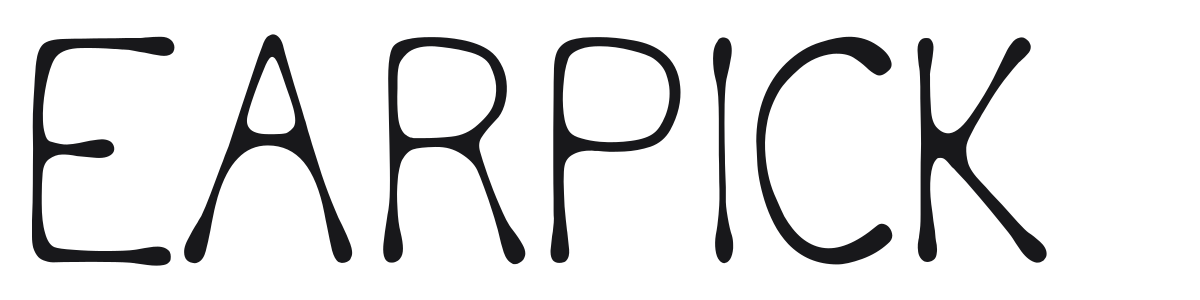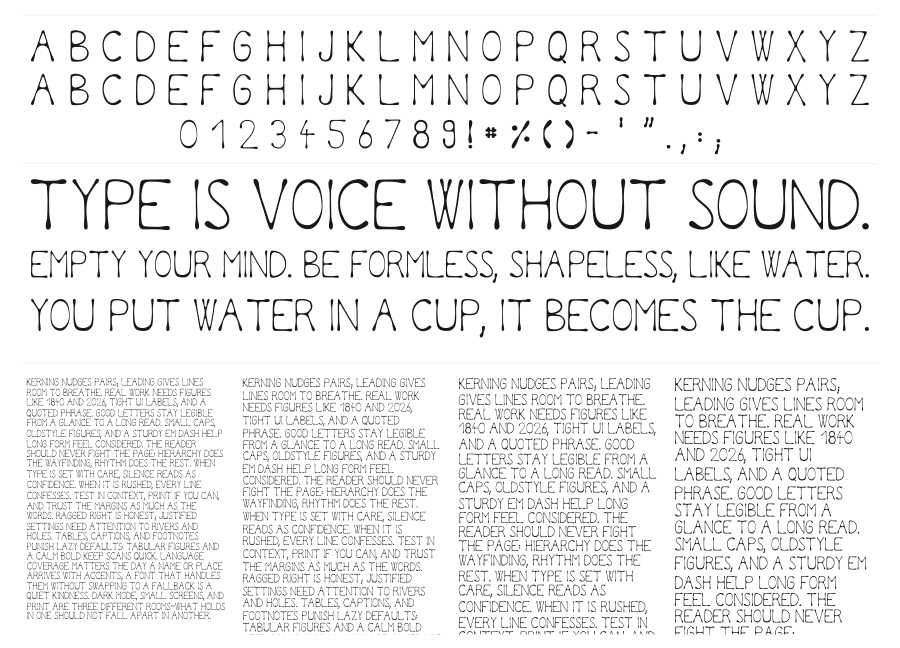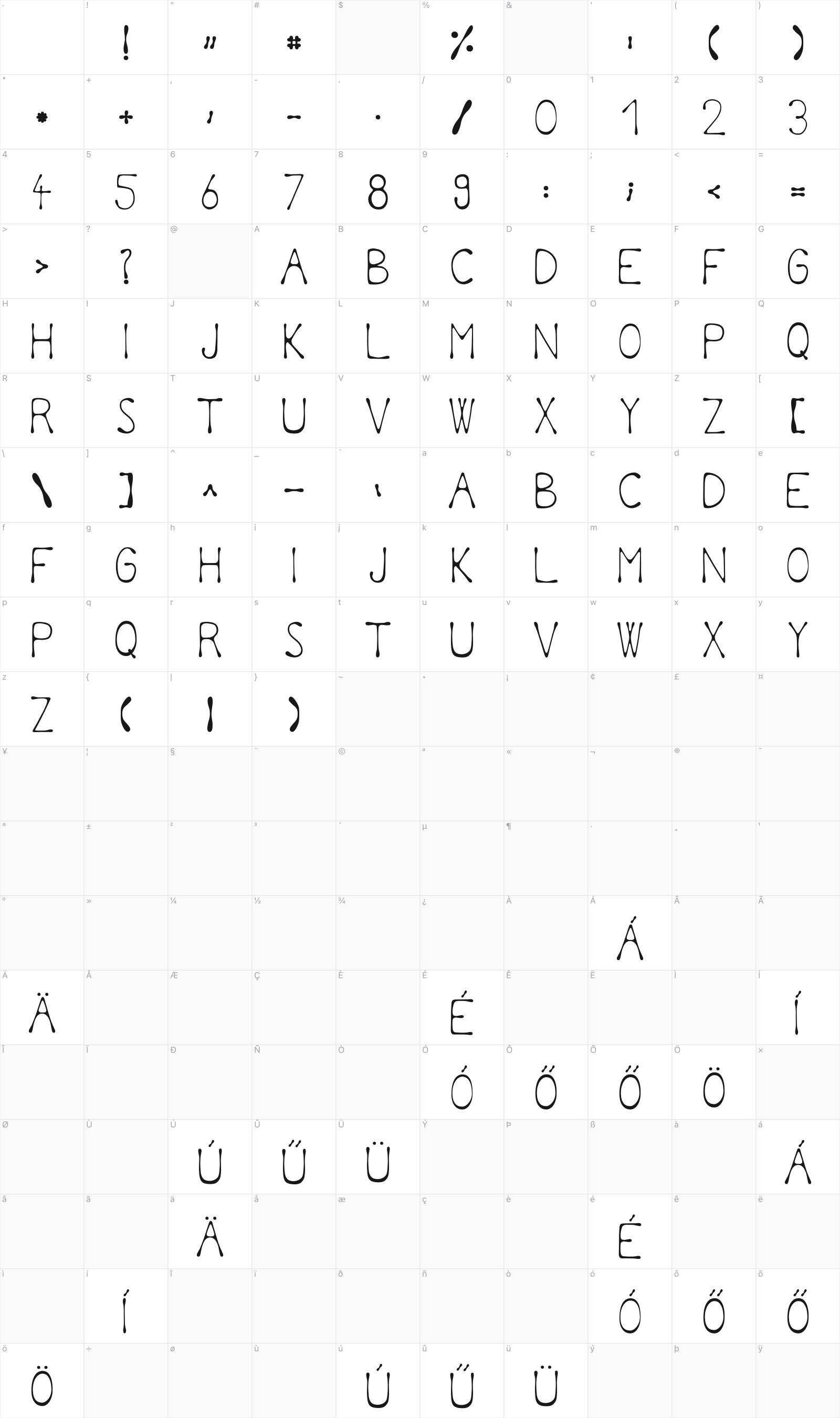
Earpick
Earpick is a thin, hand-drawn sans-serif with deliberately wobbly strokes and organic inconsistencies that give it a naive, handcrafted charm. Each character has subtle irregularities in curve and weight that feel sketched rather than constructed. It brings a folk-art looseness to headlines, packaging, and anywhere a touch of hand-made personality is welcome.